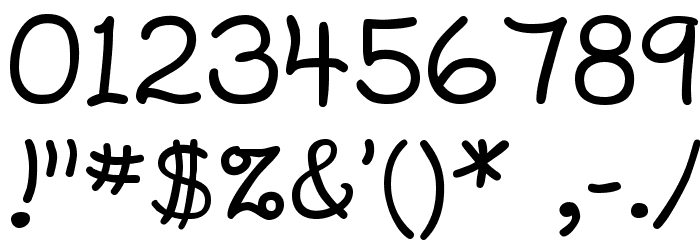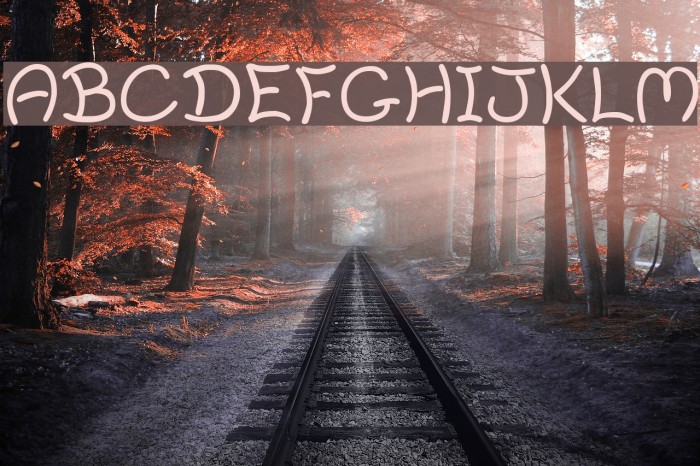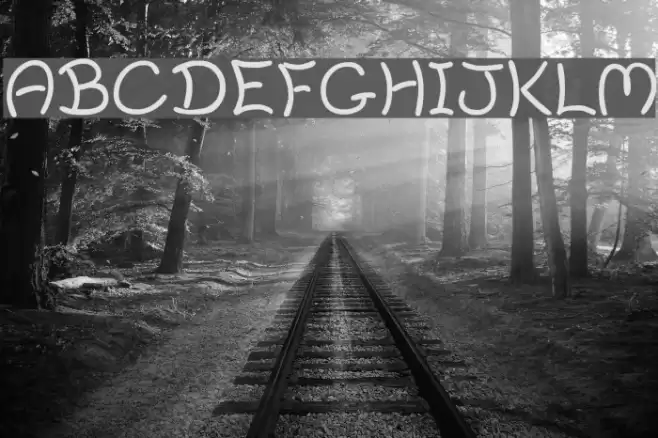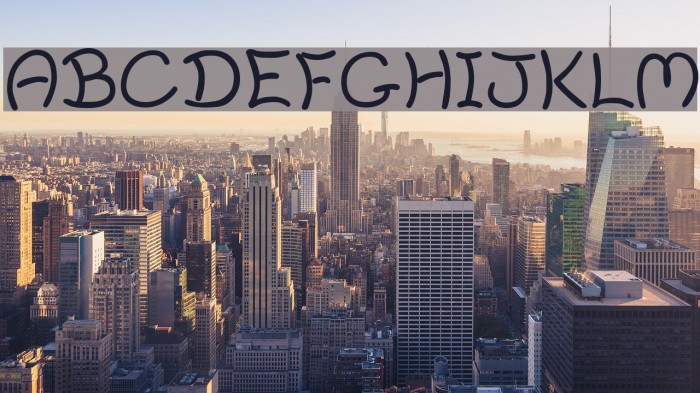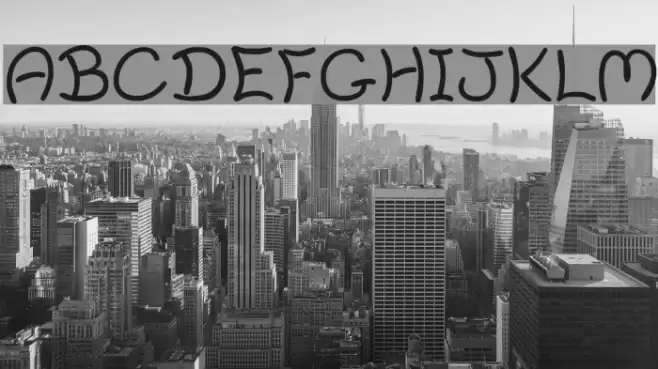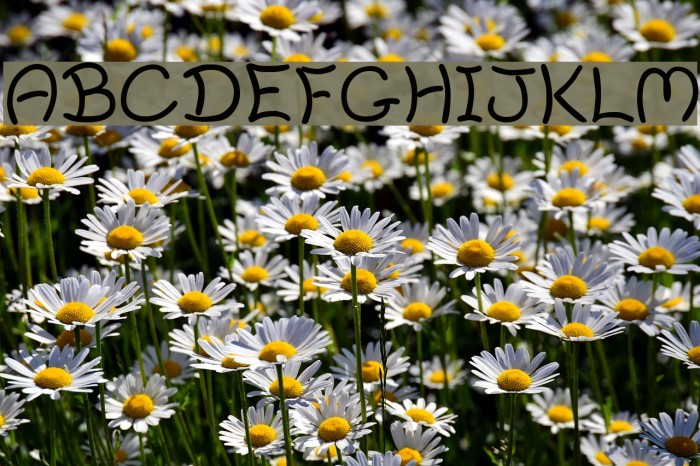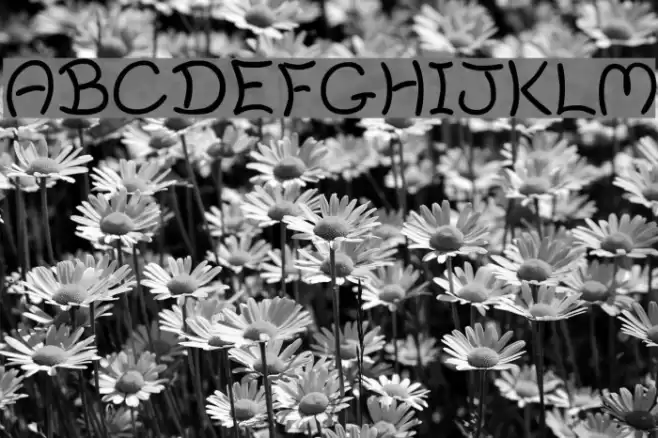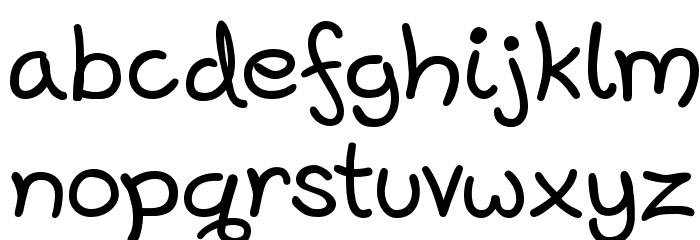
Harrowprint Font
Harrowprint Description
This font features a playful and informal style with a handwritten appearance. The characters are rounded and slightly irregular, giving them a whimsical and friendly look. The uppercase letters are bold and prominent, while the lowercase letters maintain a consistent flow with a slightly larger x-height. Numbers and special characters are designed to match the overall playful aesthetic, making them easily readable yet visually engaging. The font's unique style makes it suitable for creative projects that require a touch of personality and charm.
| Overall Style | Playful |
| Use Case | Headlines, Logos, Informal Text |
| Proposed Projects | Ideal for children's books, greeting cards, playful branding, and casual invitations. |